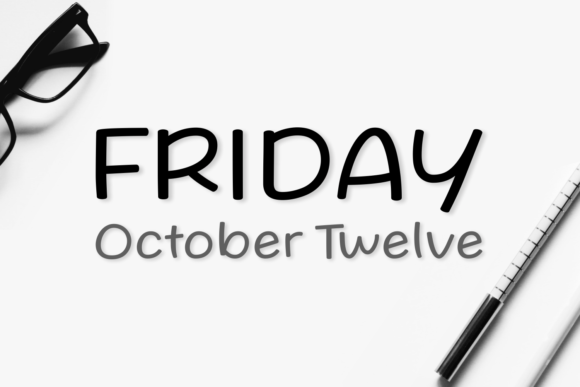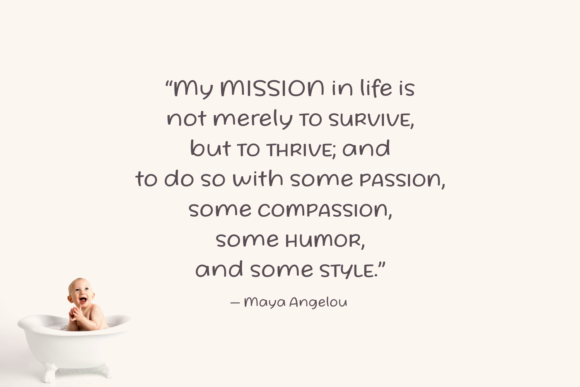
Friday October Twelve Font
About Friday October Twelve Font
The Friday October Twelve is a simple, modern typeface. Its letters have a good readability and come in a regular en italic version which gives you the opportunity to create unique designs, every time you use it!